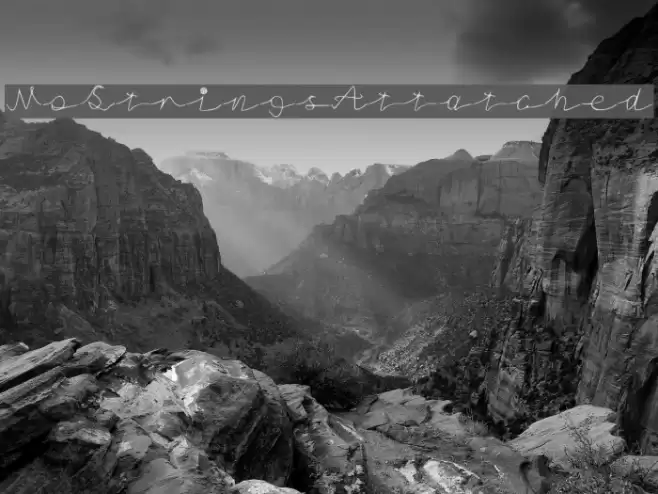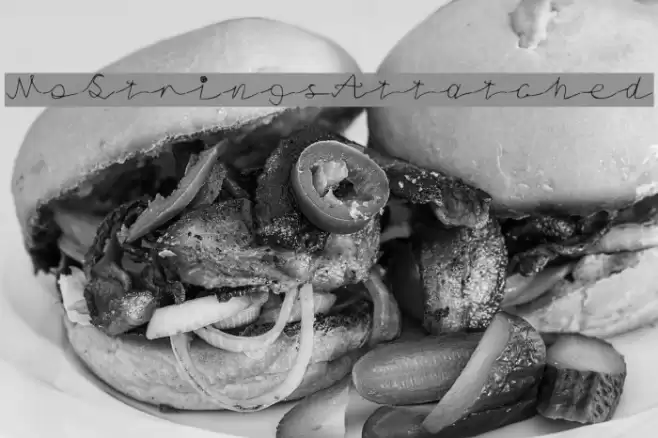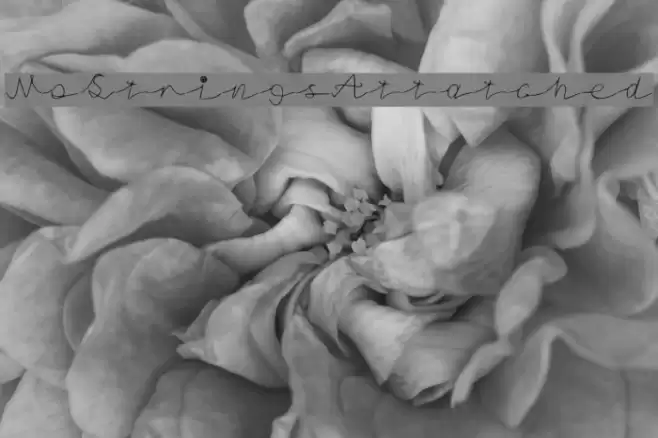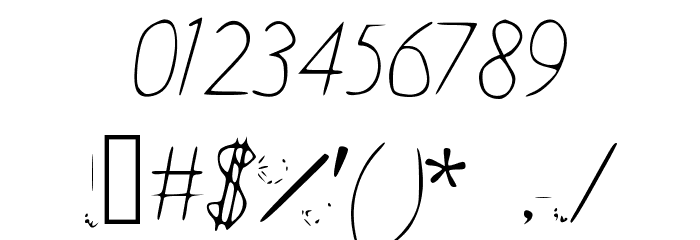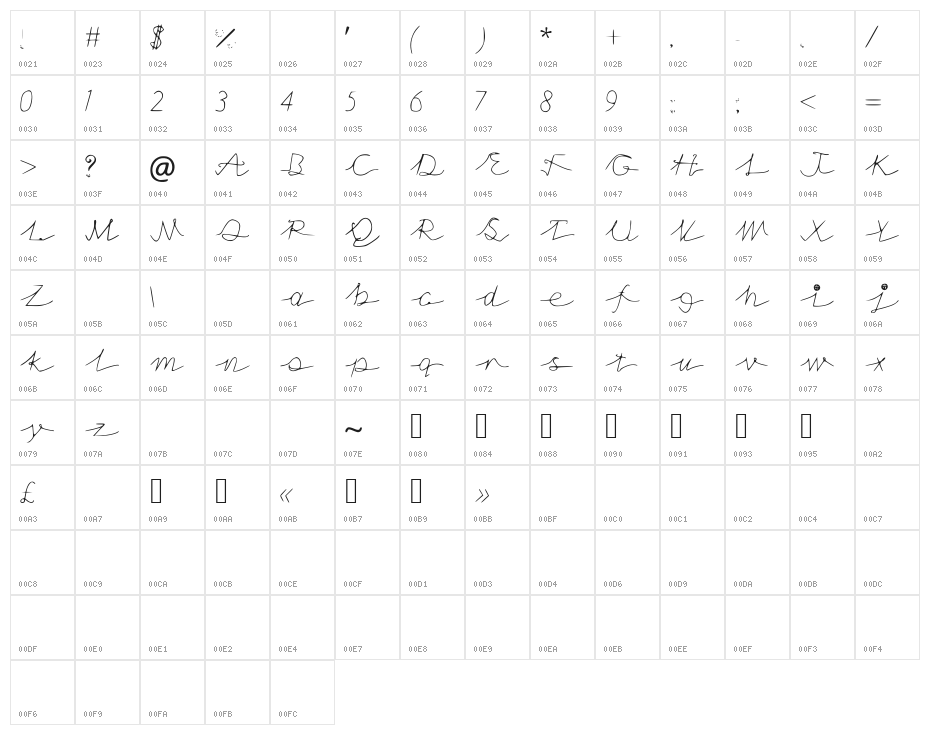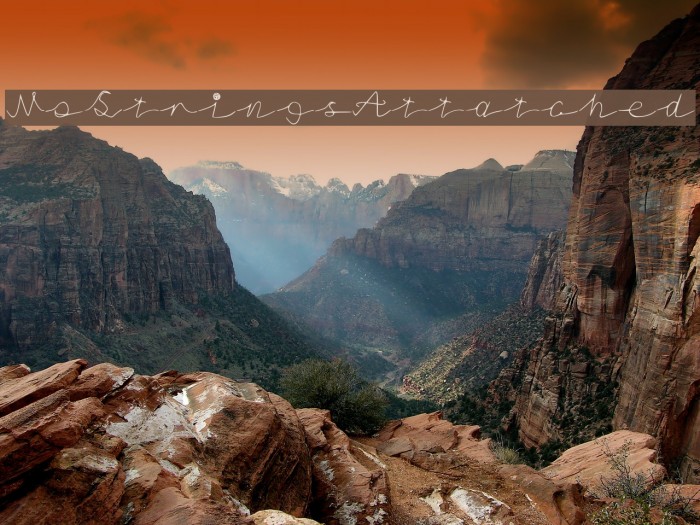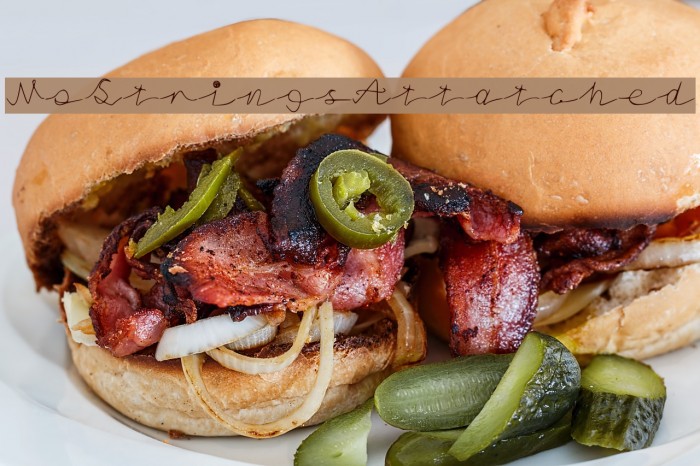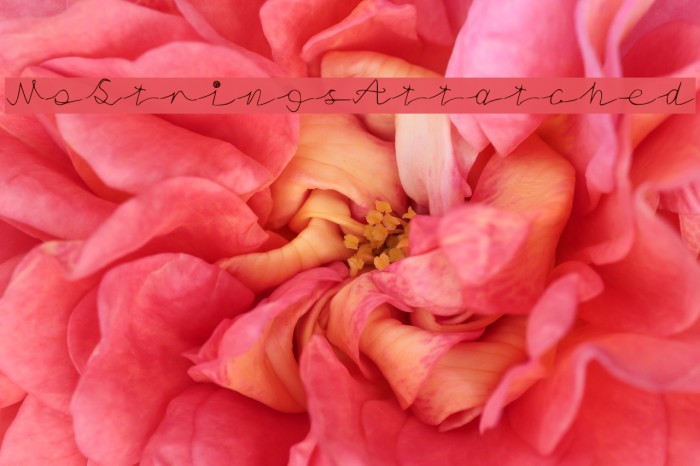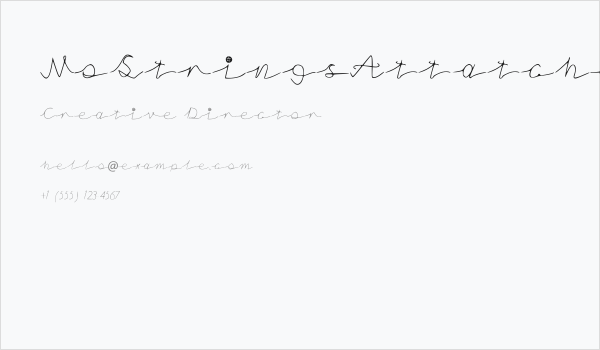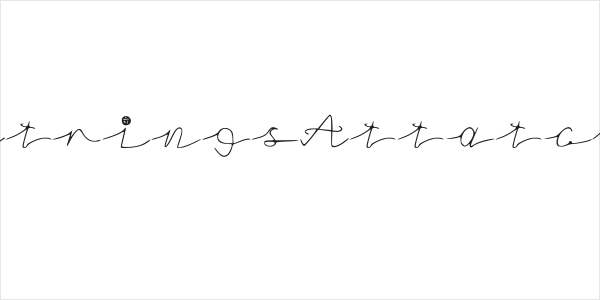
NoStringsAttatched Font
NoStringsAttatched Description
This font features a whimsical and playful script style, characterized by its fluid and continuous strokes that mimic the appearance of handwriting. The uppercase letters are elegantly connected, while the lowercase letters maintain a consistent flow, giving the font a cohesive and harmonious look. The numerals are distinct and maintain the same playful style, ensuring readability. Special characters are creatively designed, adding to the font's unique charm. This font is perfect for projects that require a personal touch or a creative flair.
A whimsical script font with fluid, continuous strokes and a playful style from Uncategorized fonts.
- Proposed Projects: Ideal for greeting cards, invitations, personal branding, and creative projects that require a handwritten touch.
- Use Case: Logos, Invitations, Creative projects